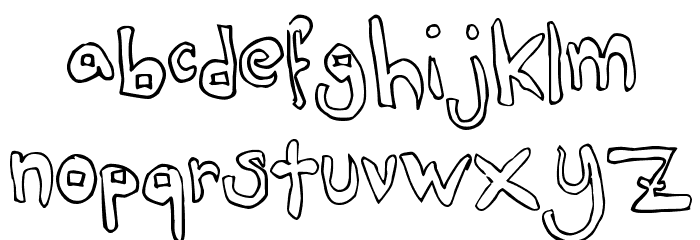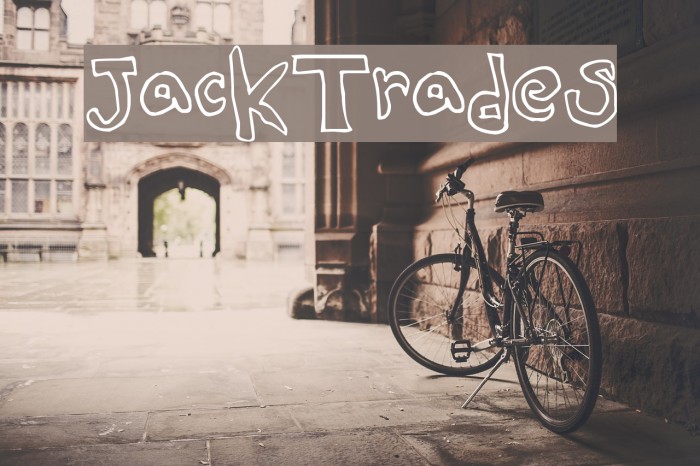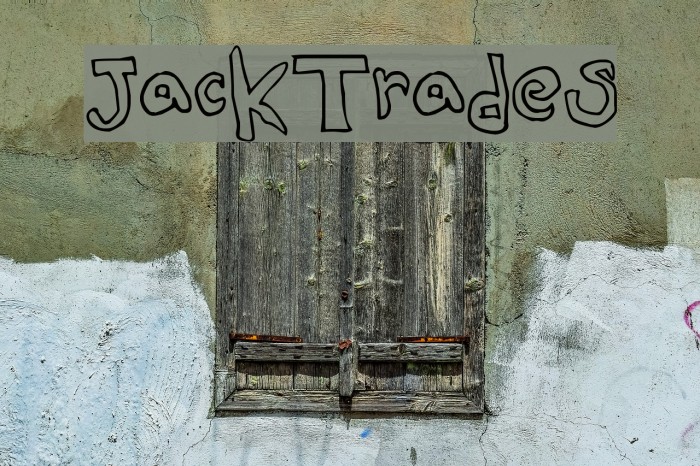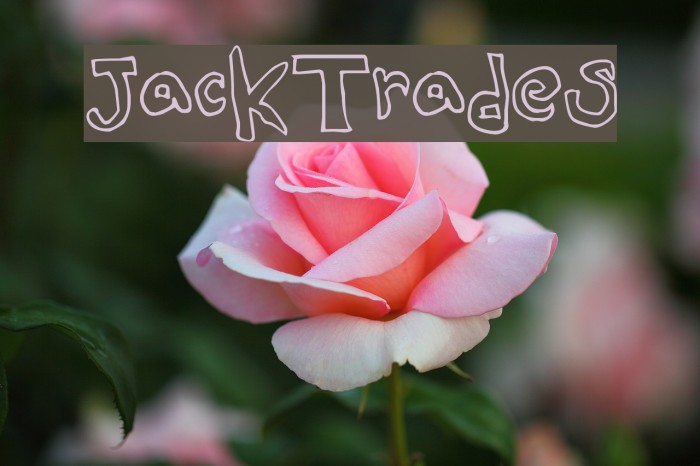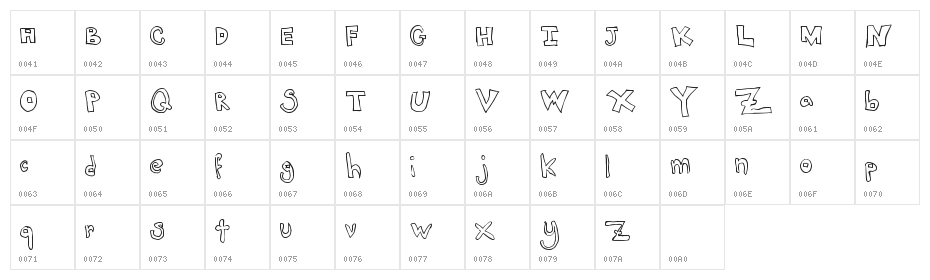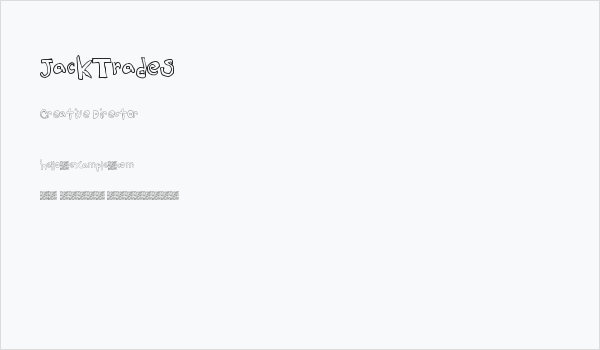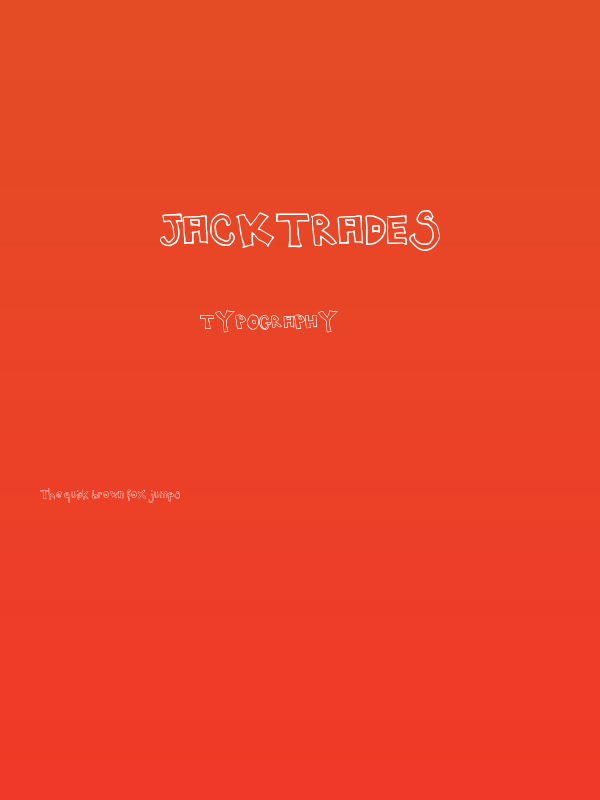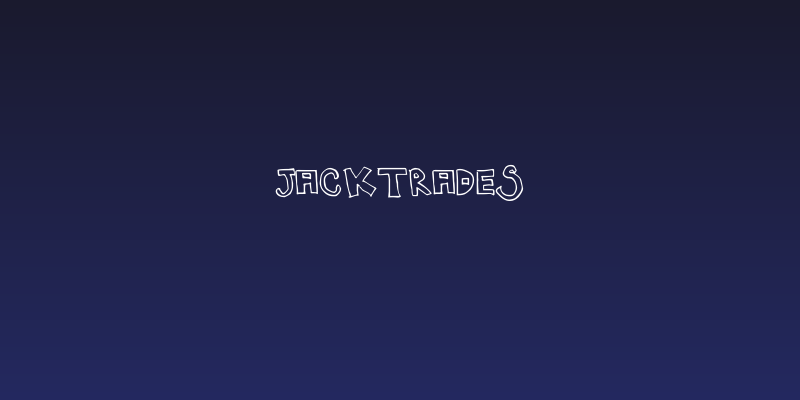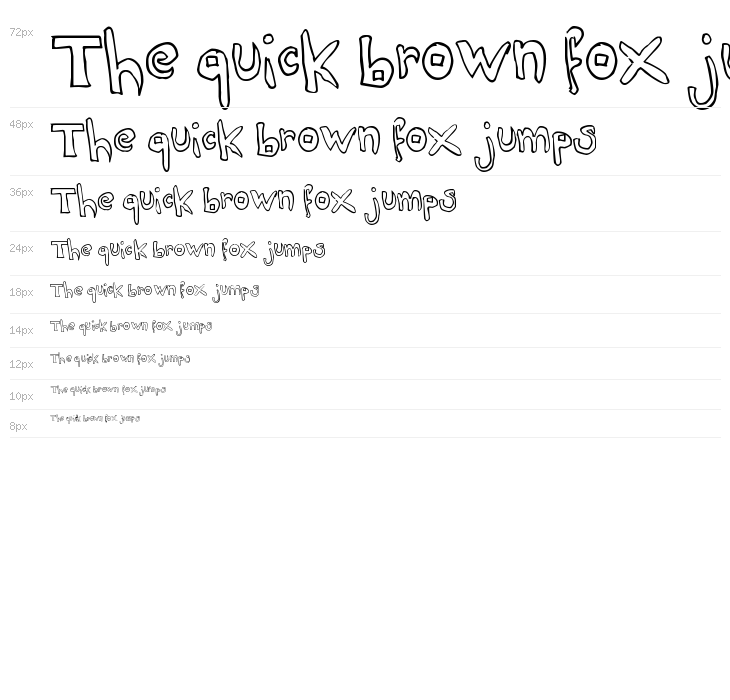
JackTrades Font
This font features a playful and hand-drawn style, characterized by its bold and irregular letterforms. Each character appears to be outlined with a thick stroke, giving it a cartoonish and whimsical appearance. The uppercase and lowercase letters maintain a consistent style, with quirky angles and varied line thicknesses that add to its informal charm. The font's unique personality makes it stand out, offering a sense of fun and creativity. It's well-suited for projects that aim to convey a lighthearted and approachable tone.
A playful, hand-drawn font with bold, irregular outlines.
- Proposed Projects: Ideal for children's books, comic strips, playful branding, and creative posters.
- Overall Style: Whimsical